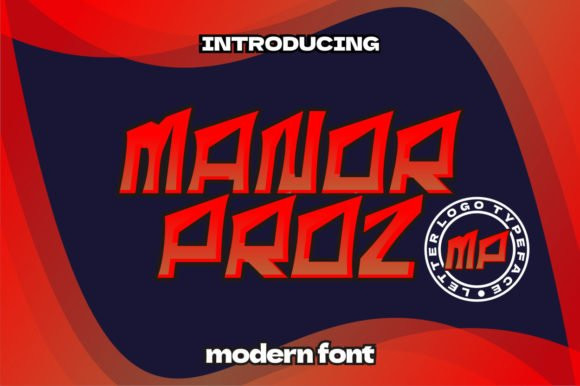
Manor Proz Font
Manor Proz is an awesome, graffiti-styled display font that has a futuristic, street art vibe. This font is suitable for designs such as t-shirts, sportswear, logos, advertisements, clothing, and more.